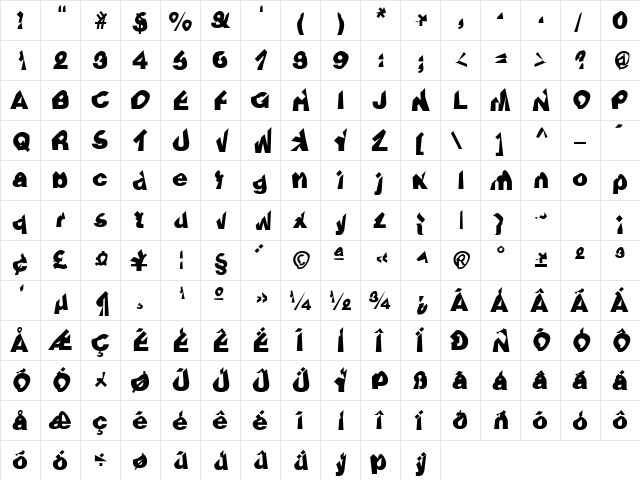
Hammer Black
Design Context for Hammer Typeface
Hammer is a composed and adaptable typeface that performs quietly and consistently across a wide range of design contexts.
Pro Tip: Use Hammer in both headline and body roles to test its range before committing to a single application.